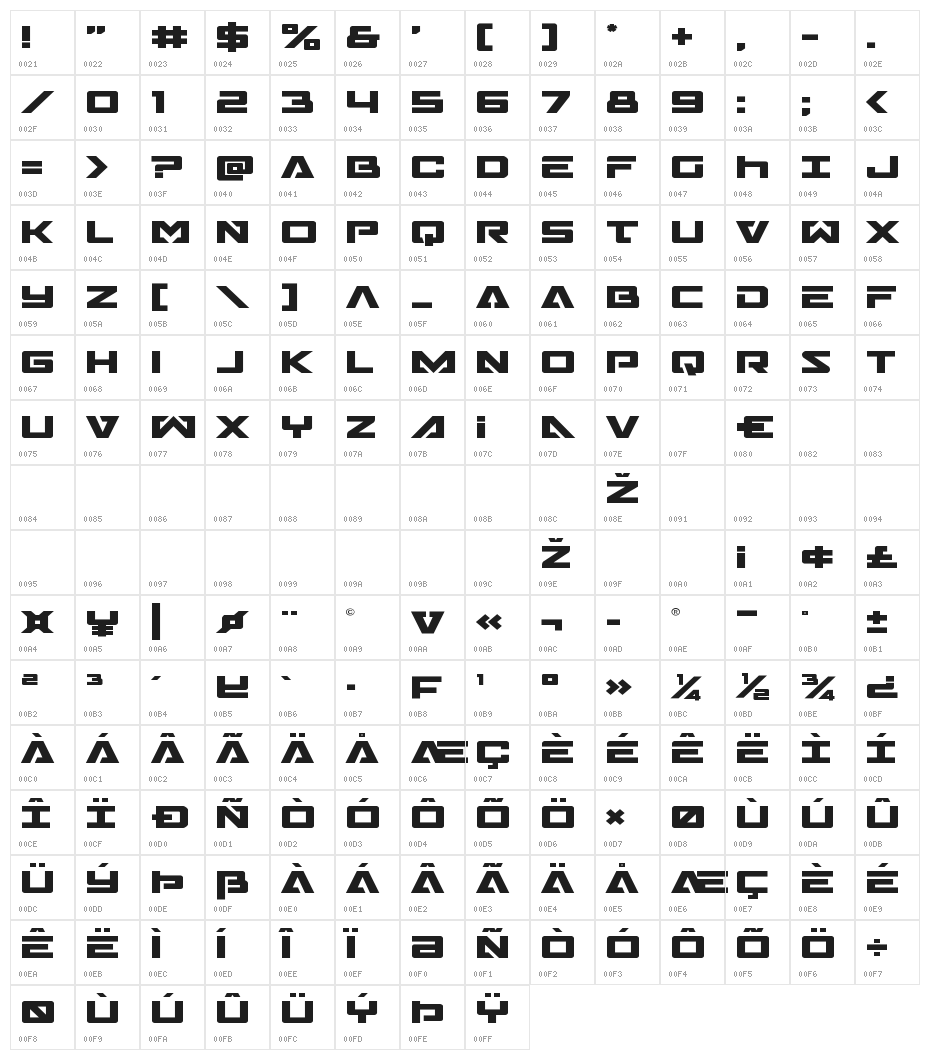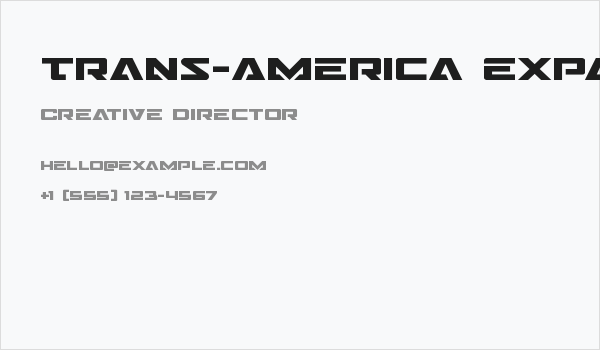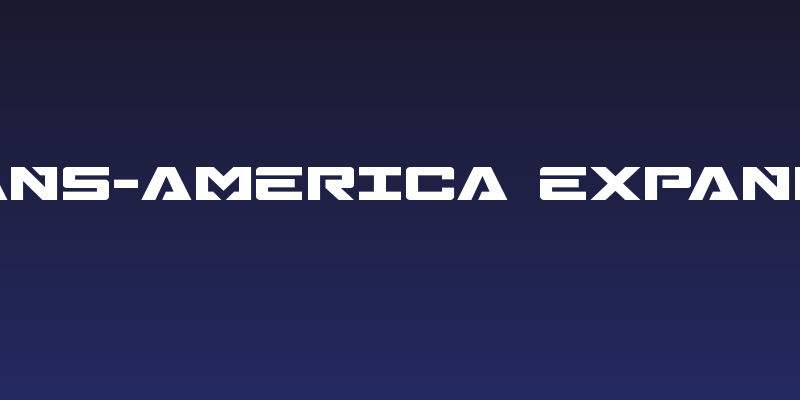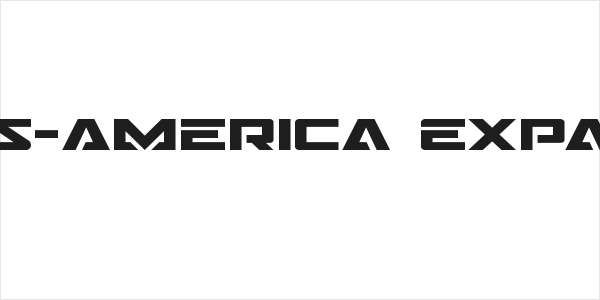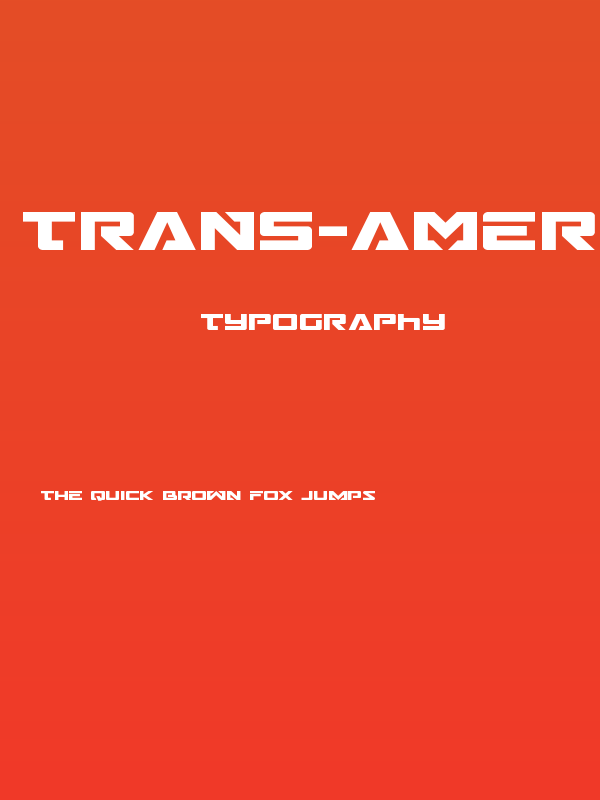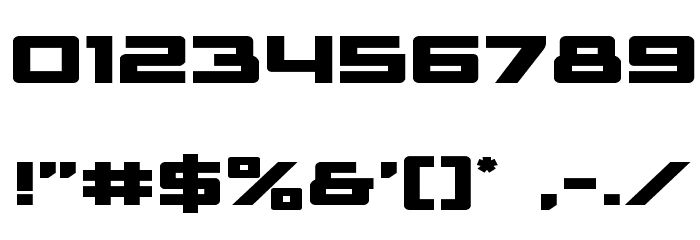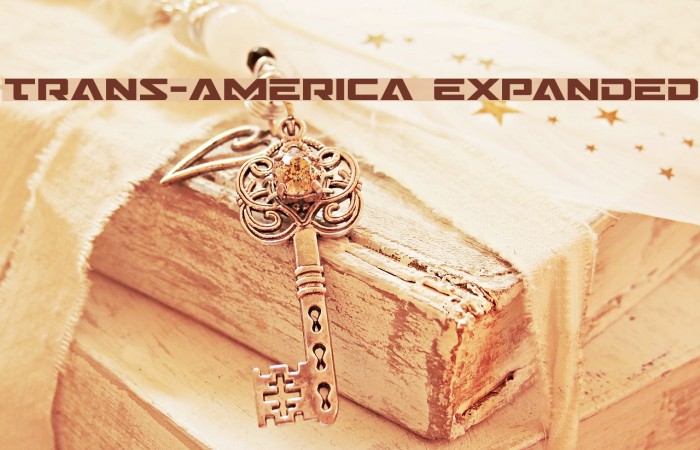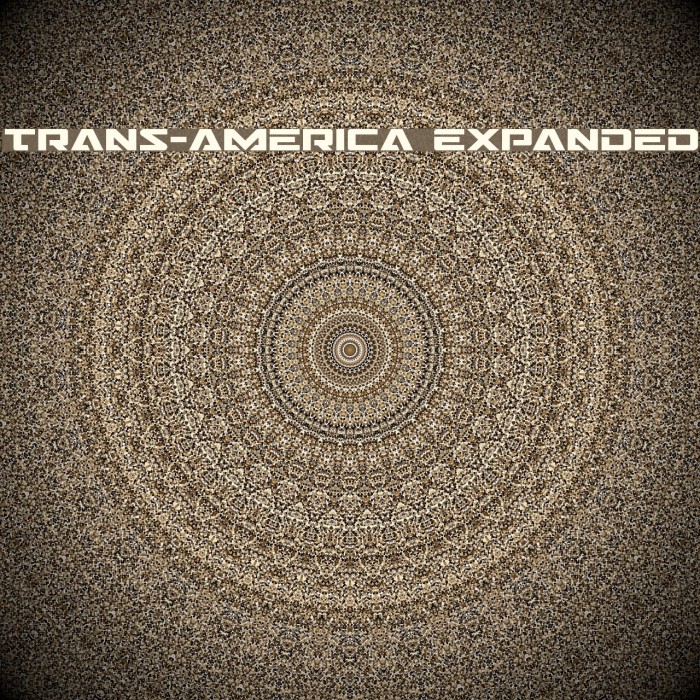
Trans-America Expanded Font
Trans-America Expanded Description
This font features a bold and futuristic design with sharp, angular lines and a geometric structure. The characters are uniformly wide, giving a sense of strength and stability. The uppercase letters are particularly striking, with a consistent height and width that create a cohesive look. The numbers and special characters maintain the same boldness, ensuring readability and impact. This font is ideal for projects that require a modern and assertive appearance.
TRANS-AMERICA-EXPANDED UPPERCASE
TRANS-AMERICA-EXPANDED LOWERCASE
TRANS-AMERICA-EXPANDED OTHER CHARS